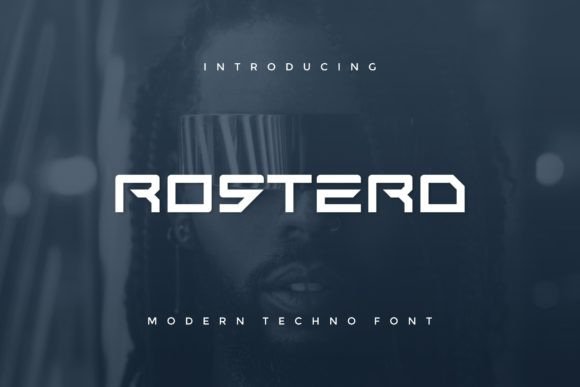
Rosterd: The Modern Display Font for Editorial Design
I remember the exact moment I knew my latest lifestyle blog redesign needed a change. It was late afternoon, and I was staring at a draft header that felt too generic, lacking the personality required to match the warm, inviting tone of the new content strategy. I needed something that could command attention without shouting, a typeface that felt both cool and modern while maintaining an editorial sophistication. That is when Rosterd caught my eye. As a display font designed for creative projects, it offered the perfect rhythm for headlines, cover text, and the visual anchors that guide readers through a digital story.
When you are building a publication identity, the choice of Display fonts can make or break the first impression. Rosterd isn't just another decorative typeface; it is a tool for creating a distinct mood. Whether you are designing a wedding guide, a coaching workbook, or a digital magazine layout, the character of this font brings a sense of curated style that elevates the entire project. It allows designers to infuse their work with a contemporary flair that feels intentional rather than accidental.
Rosterd for Blog Headers and Website Titles
The journey began with the blog header, where Rosterd immediately transformed the site's visual hierarchy. In web design, headers are the first thing visitors see, and they need to be legible yet striking. Using Rosterd as the primary title font created an instant focal point that drew the eye down the page naturally. Unlike heavy serif fonts that can feel dated or sans serifs that might appear too corporate, this modern typography strikes a balance that suits a lifestyle brand perfectly.
I tested Rosterd across various screen sizes, from desktop monitors to mobile devices, and found that its clean lines held up well even at smaller resolutions. When paired with a readable body copy font, such as a classic serif or a neutral sans serif, the contrast creates a professional look that encourages readers to stay longer. For bloggers and publishers looking to refresh their online presence, using Rosterd for article titles and navigation labels adds a layer of polish that signals quality content.
Rosterd in Recipe Ebooks and Digital Guides
Moving beyond the website, I decided to apply the same font to a recipe ebook I was compiling. Creating a digital guide requires a font that is not only beautiful but also easy to scan. Rosterd excels here because its geometric structure makes chapter headings and section dividers stand out clearly. When used for recipe names or ingredient lists, the font adds a touch of elegance that makes the food photography pop.
In this context, the font serves as a visual cue, helping readers navigate through the steps without getting lost in dense text. The cool and modern aesthetic of Rosterd ensures that the ebook doesn't feel like a dry manual but rather a stylish companion. By integrating this Fonts option into your digital products, you create a cohesive experience that users want to keep on their shelves—virtual or physical.
Rosterd for Wedding Invitations and Elegant Branding
One of the most satisfying applications of Rosterd was for a series of wedding invitations and branding materials. While script fonts are often the go-to for weddings, there is a growing trend toward modern, minimalist designs that rely on strong display typography. Rosterd fits this niche beautifully, offering a crisp, contemporary look that feels fresh and timeless.
For event planners and designers, using Rosterd allows for a unique identity that stands out among traditional floral scripts. It works exceptionally well for invitation cards, save-the-dates, and program covers where a bold statement is needed. The font's ability to convey sophistication without being overly ornate makes it a versatile choice for high-end events. When combined with ample white space and elegant imagery, Rosterd helps create a visual narrative that resonates with modern couples.
Rosterd for Newsletter Graphics and Social Media
Content creators know that social media graphics and newsletter headers must grab attention instantly in a crowded feed. Rosterd provides the necessary impact to stop the scroll. I used the font to design a series of promotional images for a creator newsletter, and the results were immediate. The bold weight of the display font ensured that key messages were readable even at thumbnail size.
This versatility extends to social media posts, where short, punchy headlines can drive engagement. By using Rosterd for captions, quotes, or call-to-action buttons, brands can maintain a consistent visual voice across all platforms. The font's modern appeal aligns well with current design trends, making it an excellent asset for anyone looking to build a recognizable brand identity online.
Rosterd for Printable Planners and Course Materials
For those selling digital downloads, the aesthetic of the product is just as important as the content itself. I explored using Rosterd for printable planners and course PDFs, areas where clarity and style must coexist. The font's structured forms make it ideal for organizing information in worksheets, checklists, and daily planners.
In conclusion, choosing the right Display font is about more than just aesthetics; it is about enhancing the communication between your content and your audience. Rosterd offers a refined solution for bloggers, publishers, and designers who want to elevate their projects with a cool, modern edge. From blog headers to wedding guides, its adaptability makes it a valuable addition to any creative toolkit. By adding Rosterd to your next project, you ensure that your work not only looks great but also feels intentional and professional.